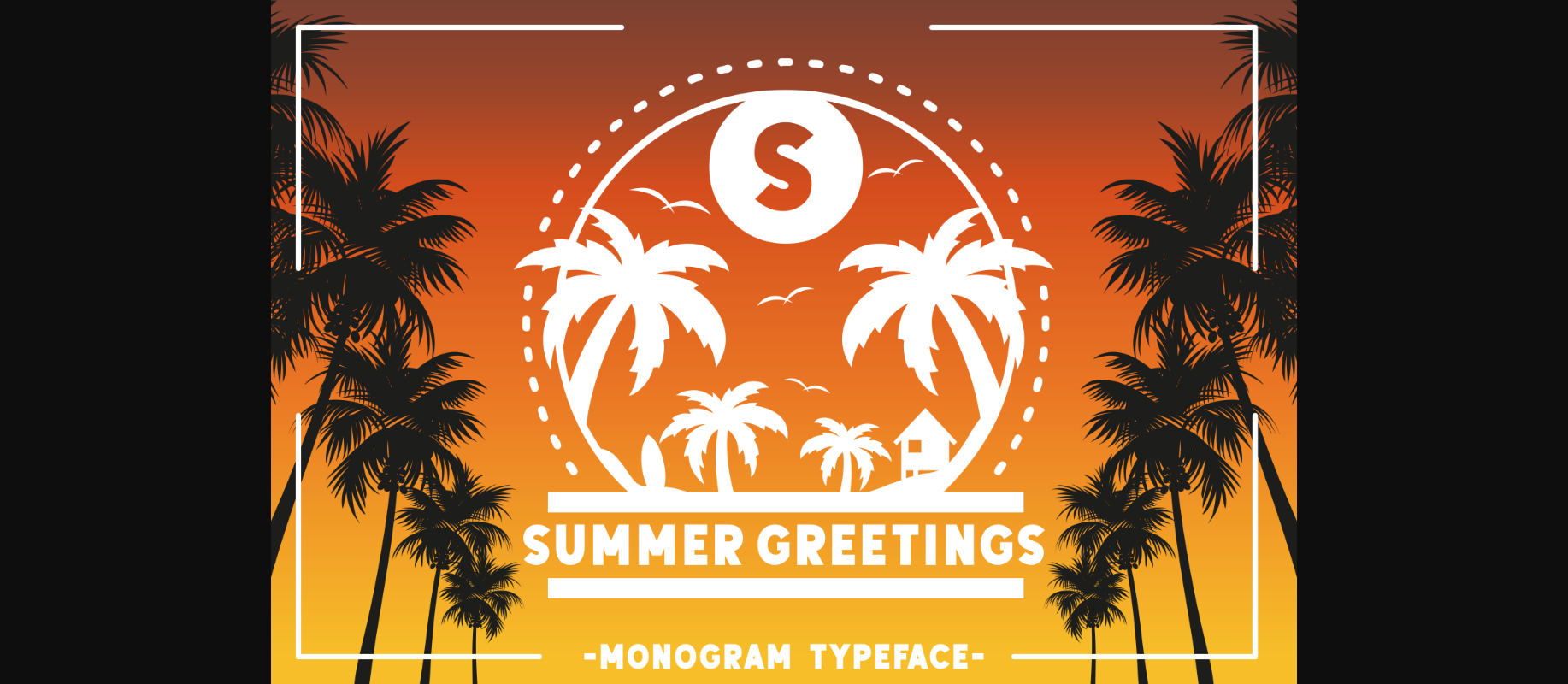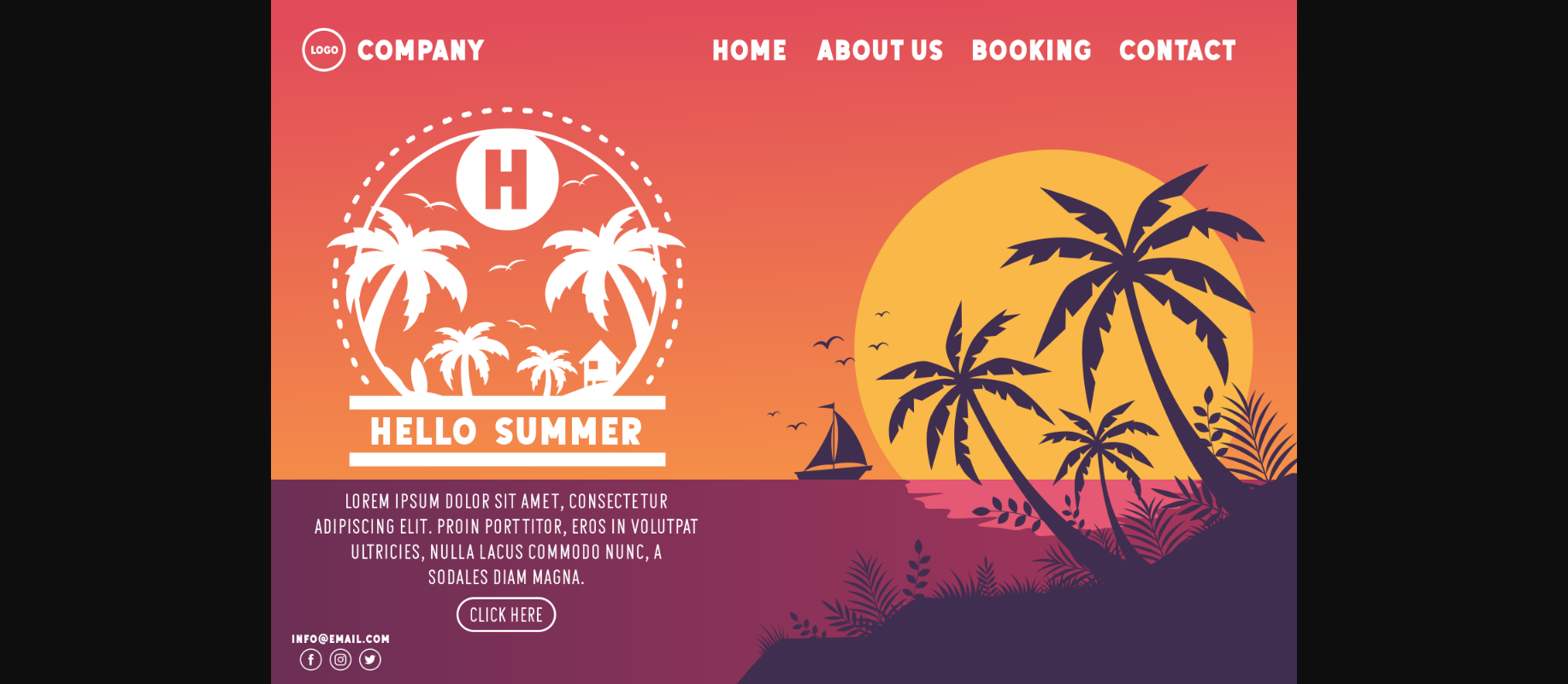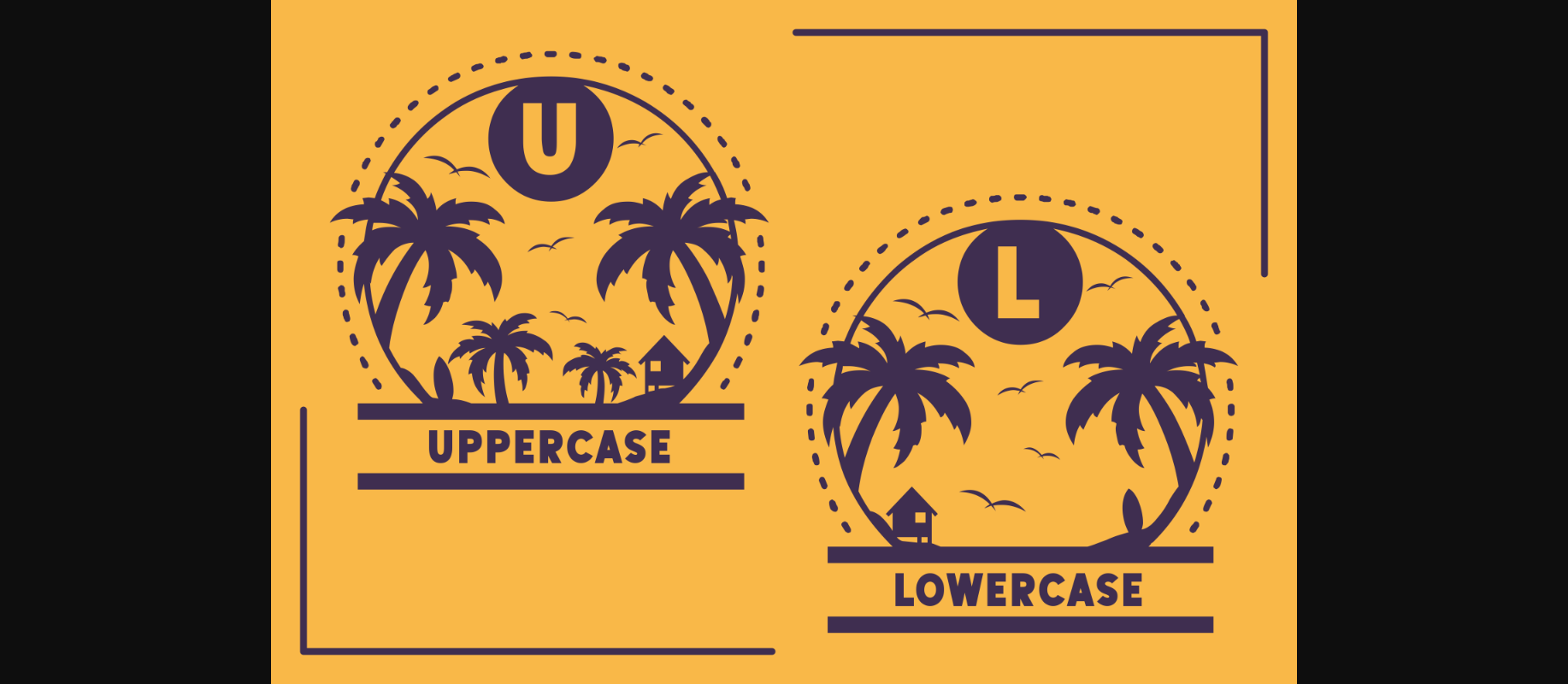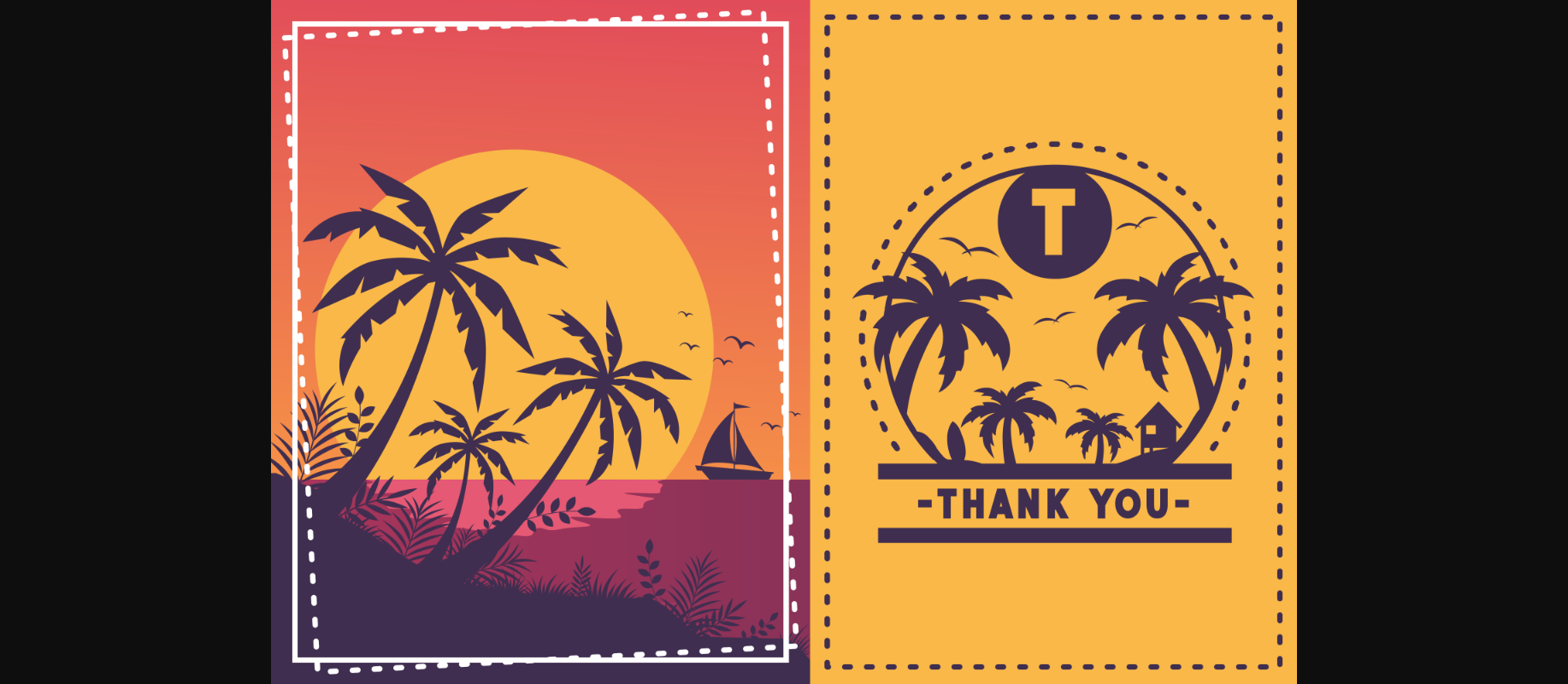
Summer Greetings Font
About Summer Greetings Font
Summer Greetings is a fun, jolly and sunny decorative font, featuring lovely palm trees. Add to each of your party invitation, swimming gathering or pretty much any design that requires a touch of youth and joy.